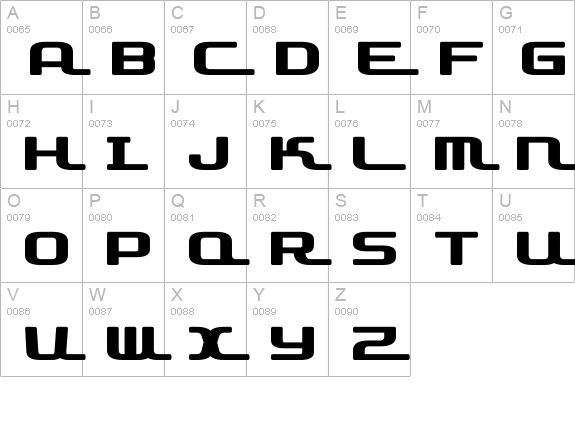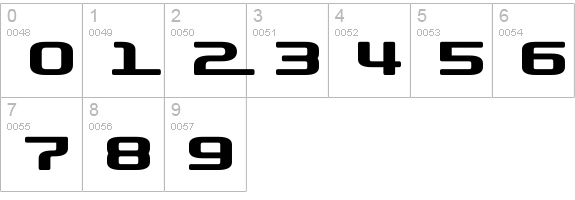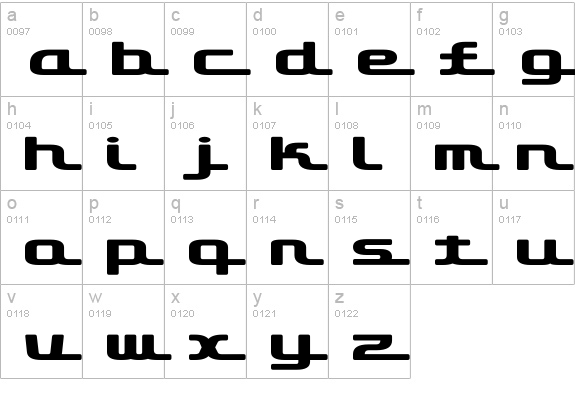
D3 Roadsterism Wide Font Details
D3 Roadsterism Wide is a distinctive, extended-width variant in the D3 typeface family \xE2\x80\x94 well suited to design and typography projects.
D3 Roadsterism Wide is a bold and stylish font that exudes a sense of speed and excitement. Its wide letterforms give it a modern and dynamic look, making it perfect for automotive-related designs or any project that needs a touch of boldness. This font is not only visually appealing but also highly versatile, allowing you to use it for various design purposes. Whether you're creating eye-catching headlines, attention-grabbing posters, or sleek and modern logos, D3 Roadsterism Wide will surely make your design stand out. One of the best things about D3 Roadsterism Wide is that it is freely available to download at FontsMarket.com. This means that you can enjoy the benefits of this amazing font without having to spend a penny. It's a great opportunity to add a high-quality and professionally designed font to your collection, without breaking the bank. So why wait? Head over to FontsMarket.com now and download D3 Roadsterism Wide for free. Elevate your designs with this bold and stylish font, and make a lasting impression on your audience.